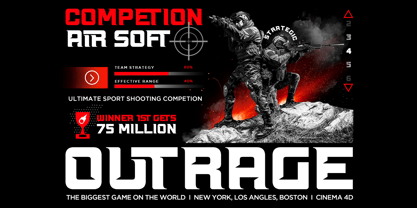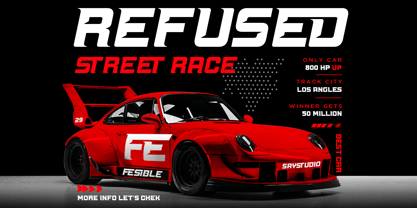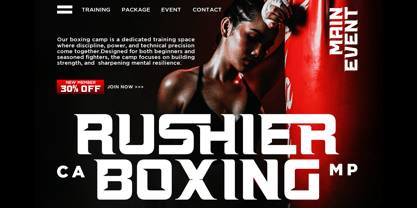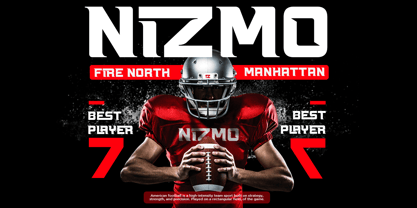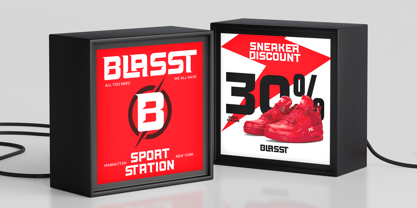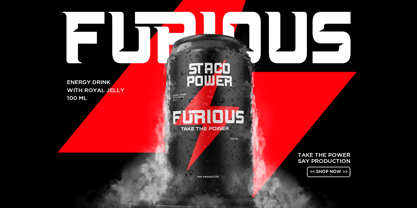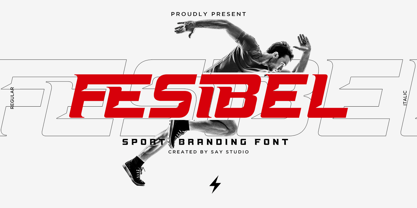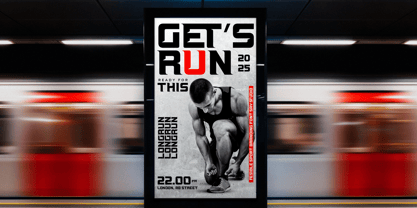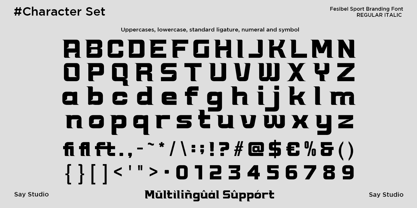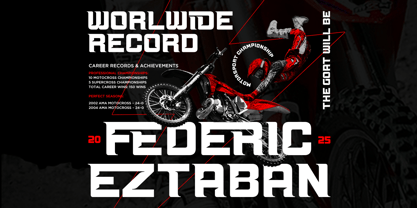
Fesibel
by Say Studio
The Fesibel Font Family was designed by Mussyayin and published by Say Studio. Fesibel contains 2 styles and family package options. More about this family
Fesibel is a bold futuristic sports display font built to deliver speed, strength, and high-impact visual branding. Featuring sharp geometric forms, dynamic angles, and powerful athletic styling, this typeface is designed to make headlines stand out across digital and print media. Whether you're creating sports branding, esports identities, racing graphics, or modern advertising campaigns, Fesibel brings an energetic and competitive edge to every project.
Perfect for logos, posters, jerseys, gaming graphics, YouTube thumbnails, automotive branding, fitness promotions, packaging, social media content, and editorial layouts, Fesibel offers excellent readability while maintaining a distinctive futuristic personality. Its strong visual presence makes it ideal for projects that demand attention and memorable typography.
The font includes uppercase and lowercase characters, numerals, punctuation, multilingual support, and stylish ligatures, making it a versatile choice for designers, creative agencies, sports brands, and content creators looking for a modern display typeface with maximum impact.
• Regular and Italic
• Stylistic Ligatures
• Uppercase and Lowercase
• Number, Symbol, and Punctuation
• Multilingual Support
Designers: Mussyayin
Foundry: Say Studio